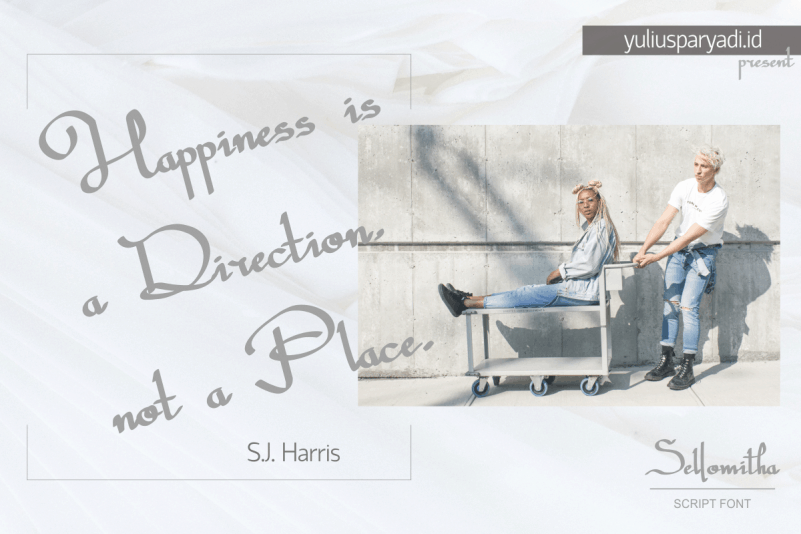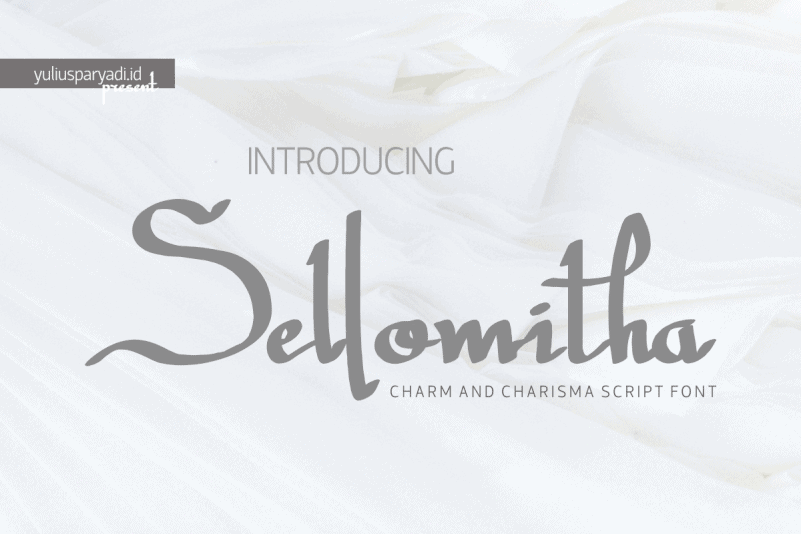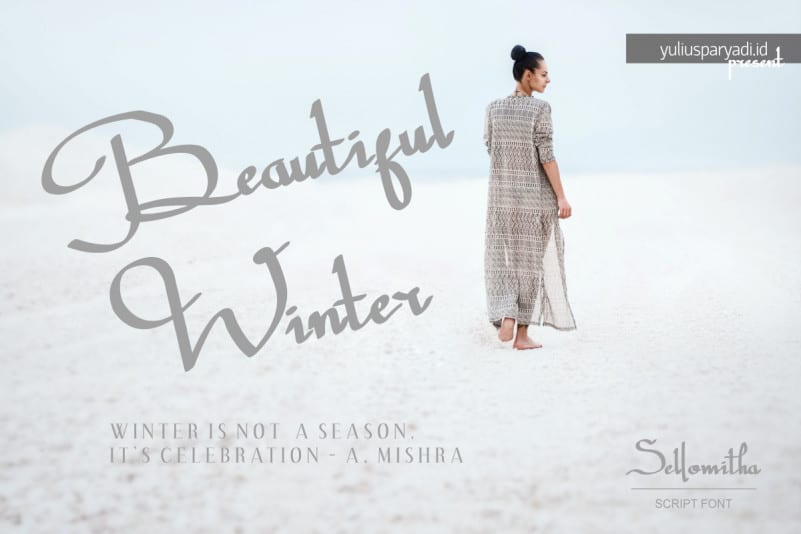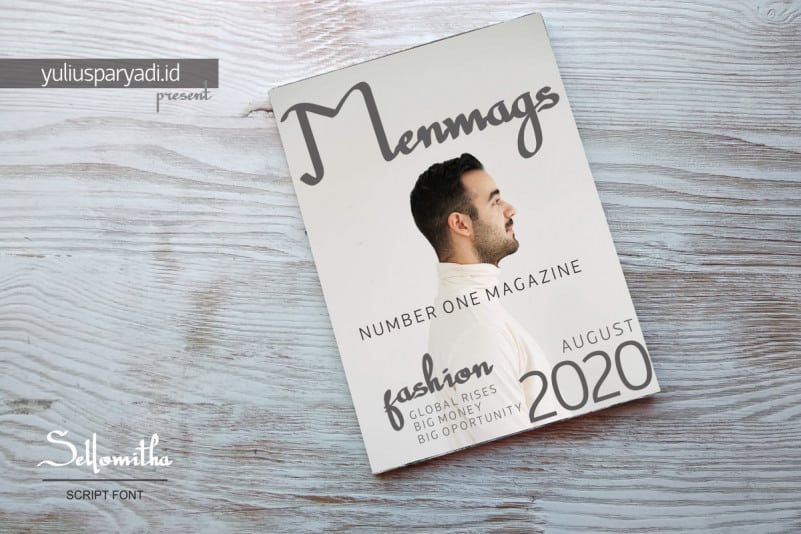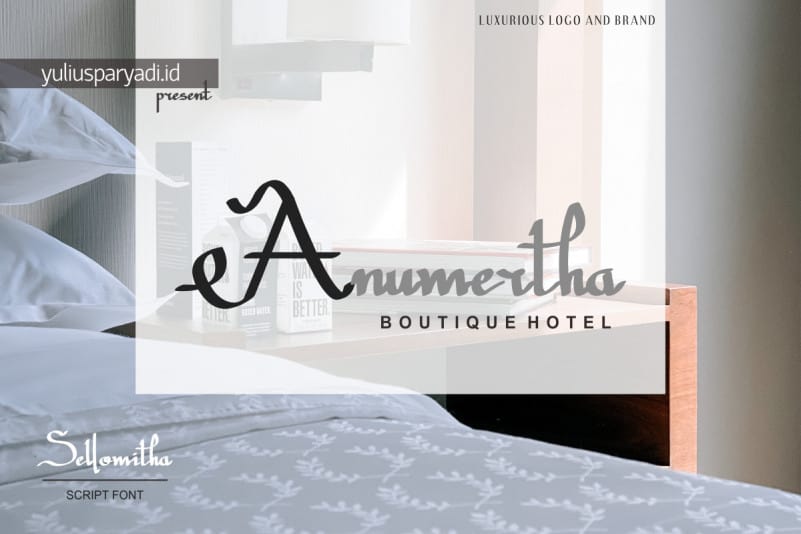
Sellomitha Script Font is made according to its name which symbolizes charm and charisma. She is glamorous and wants to be the center of attention.This font is readable, catchy, and easy to use. This font is suitable for quotes, logo designs, magazines, business cards, and many other design projects.